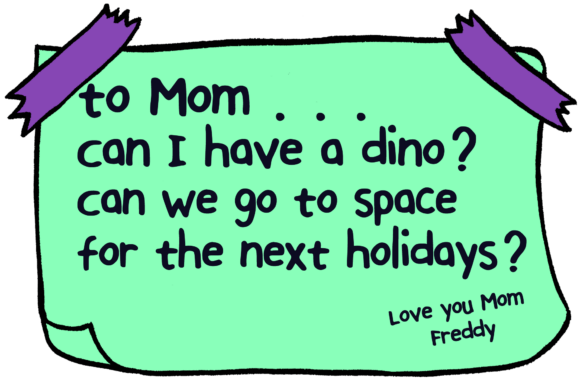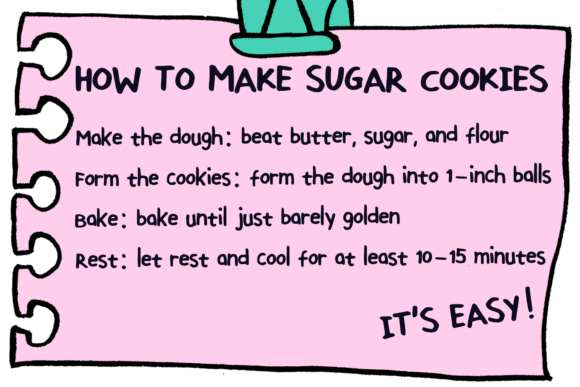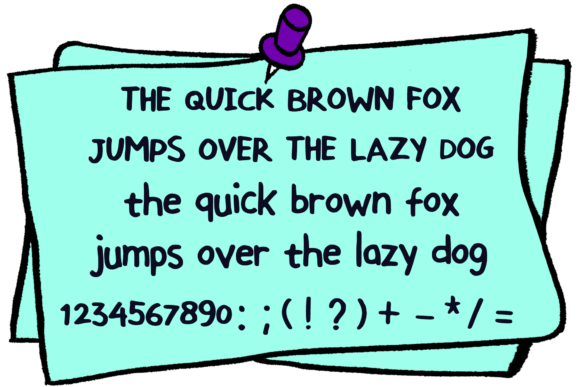
Introduction to Santai Comic Font
Santai Comic is a playful and fun to use daily comic font.
It will elevate a wide range of design projects to the highest level You can use this font for many design ideas such as stickers, t-shirt designs, amazing logo designs, magazine or book covers, comics, cartoon drawings, daily typing, and many more.
Key Features of Santai Comic Font
Why Choose Santai Comic Font?